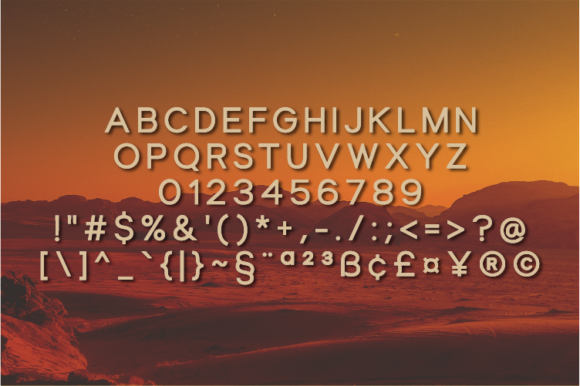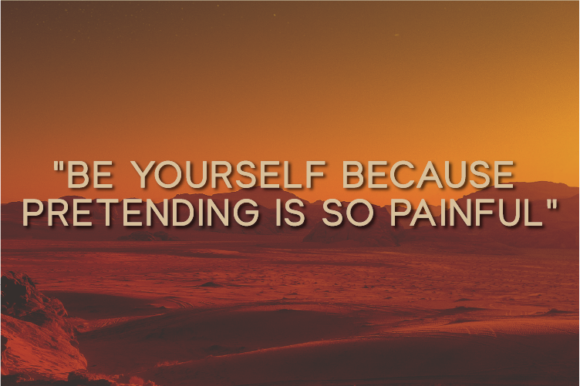
A New Era of Design: Introducing the Alobella Font
Have you ever been stuck in front of your computer, staring at a blank canvas, desperately searching for the perfect font to bring your design to life? We’ve all been there. It’s that moment of creative frustration when you’re not sure what’s missing, but you know it’s something special. That’s where the Alobella Font comes in – a simple, futuristic sans serif font designed to elevate your designs and leave a lasting impression.
Alobella Font is more than just a font – it’s a game-changer for designers looking to add a touch of modernity to their work. Its clean, thin, and smooth vibe makes it perfect for any design project, from sleek websites to trendy social media graphics. With the Alobella Font, you’ll be able to create designs that are both stylish and timeless.
- Font Family: Alobella Font is a sans-serif font family.
- Unique Characteristics: Alobella Font features a unique blend of modern and elegant design elements, with a focus on legibility and readability in digital media.
- Font Weight: Available in Light, Regular, Medium, Bold, and Extra Bold weights to cater to various design requirements.
I’ve had the chance to work with Alobella Font, and I must say it’s a decent addition to any design library. Here are some things that work well:
- ✨ Alobella Font has a beautiful, elegant feel to it. The curves are smooth, and the overall aesthetic is quite soothing.
- ✨ The font is highly legible, making it perfect for body text in designs where clarity is key.
- ✨ Alobella Font supports a wide range of languages, making it a great choice for international projects.
- ⚠️ Alobella Font is not ideal for titles or headlines, as it can come across as too plain and lacking in impact.
- ⚠️ The font may not be suitable for projects that require a lot of emphasis or bold typography.
Overall, I’d give Alobella Font 3.5 out of 5 stars. While it’s not a showstopper, it’s a solid choice for designs where subtlety is key. It’s a good addition to any designer’s toolkit, but it’s not something I’d reach for on its own.
The Alobella font is ideal for:
- Editorial and publishing projects.
- Use it sparingly to create a sense of elegance and sophistication.
- Pair it with other fonts to create a unique and visually appealing combination.
Playfair Display is a luxurious and elegant serif font, perfect for use in high-end branding, magazine headlines, and special occasions. It features intricate details and ornate flourishes, making it a great choice for designers who want to add a touch of sophistication to their designs.
Comparison to Alobella Font: While Alobella Font is also a serif font, Playfair Display is more ornate and luxurious, making it a better choice for high-end branding and special occasions.
Montserrat is a modern sans-serif font, ideal for use in urban and industrial settings. It features clean lines and a geometric shape, making it a great choice for designers who want to create a sleek and modern look.
Comparison to Alobella Font: Montserrat is a more modern and minimalist font compared to Alobella Font, which is more elegant and sophisticated. Montserrat is better suited for use in urban and industrial settings, while Alobella Font is better suited for use in more traditional and formal settings.
Lato is a sans-serif font that features a clean and modern design. It is highly legible and versatile, making it a great choice for use in a variety of settings, from body text to headings.
Comparison to Alobella Font: Lato is a more modern and minimalist font compared to Alobella Font, which is more elegant and sophisticated. Lato is better suited for use in a variety of settings, while Alobella Font is better suited for use in more traditional and formal settings.